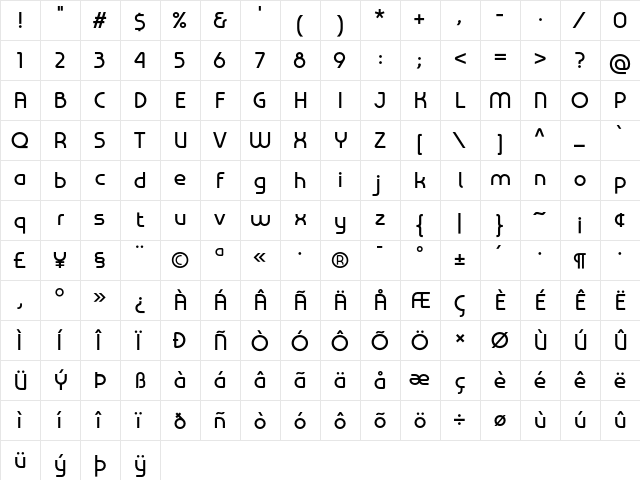
Omni Bold
| Foundry | James Marsh |
| Designer | James Marsh |
Design Context for Omni Typeface
Omni offers clean, dependable letterforms without strong stylistic allegiance, making it a practical choice for designers who need flexibility. Its bold stroke weight gives it real presence on the page.